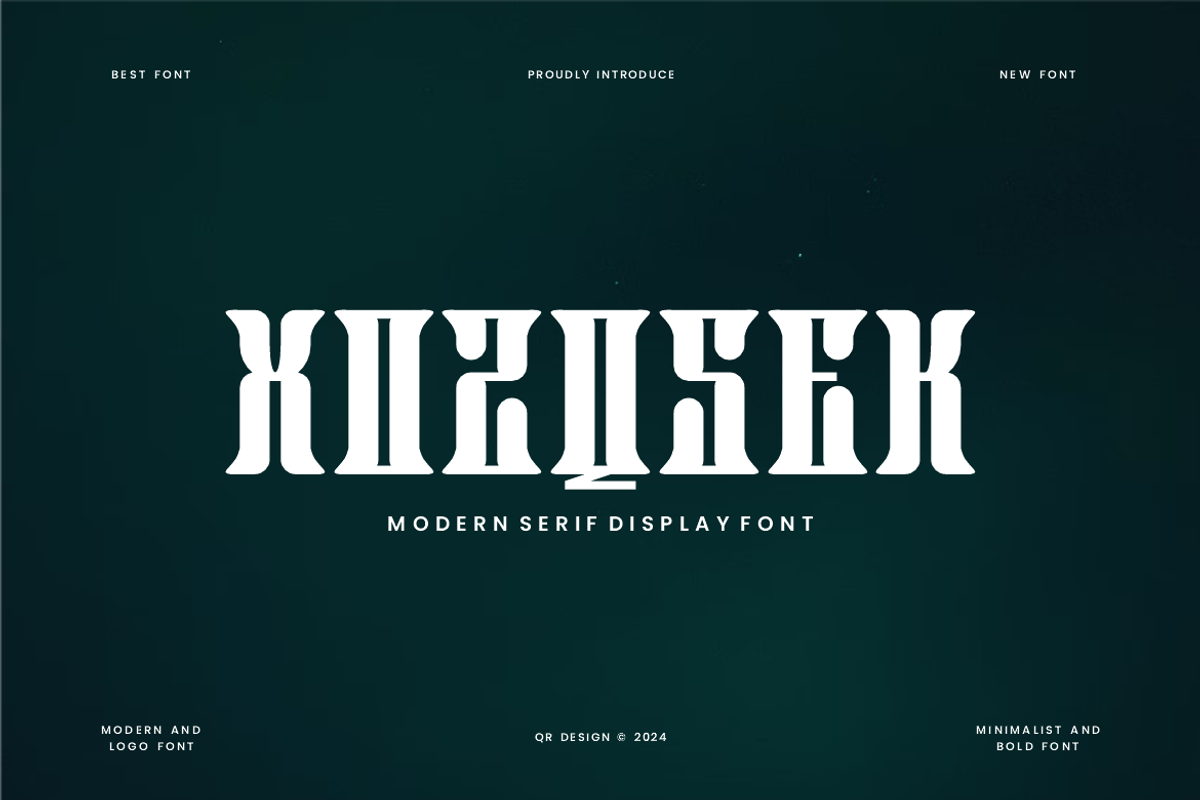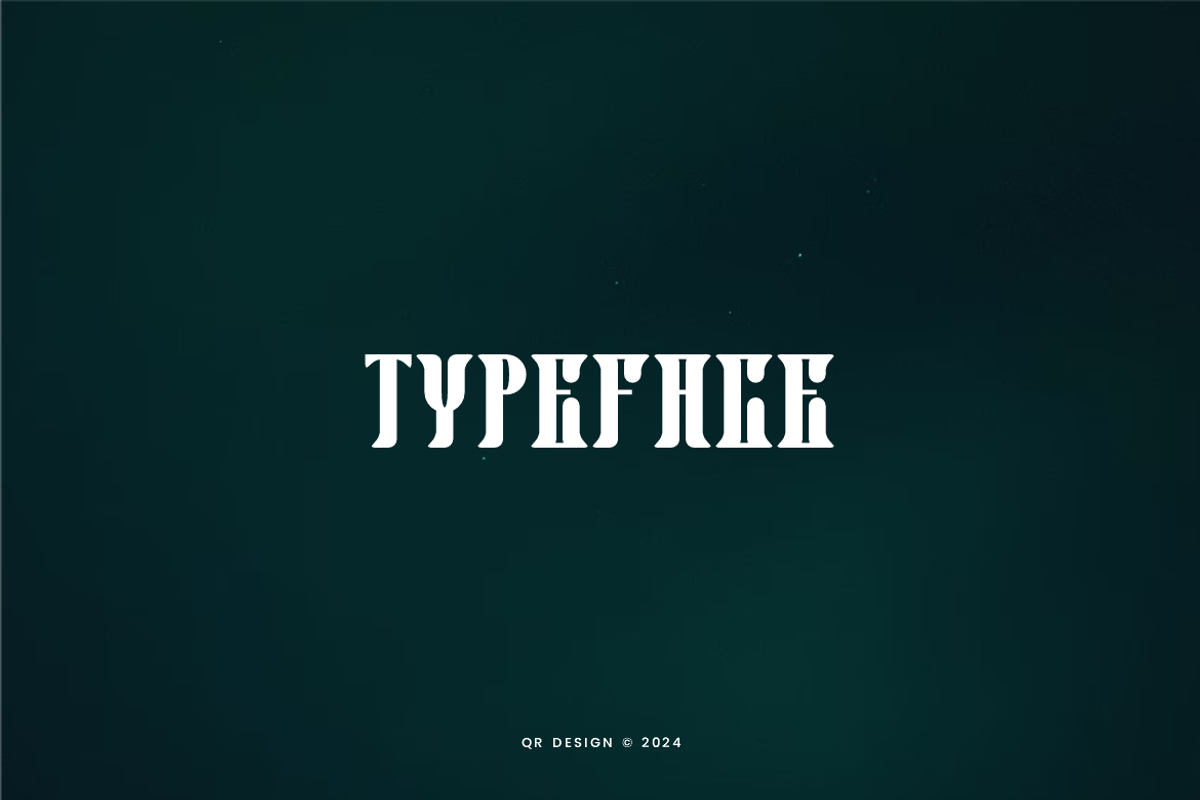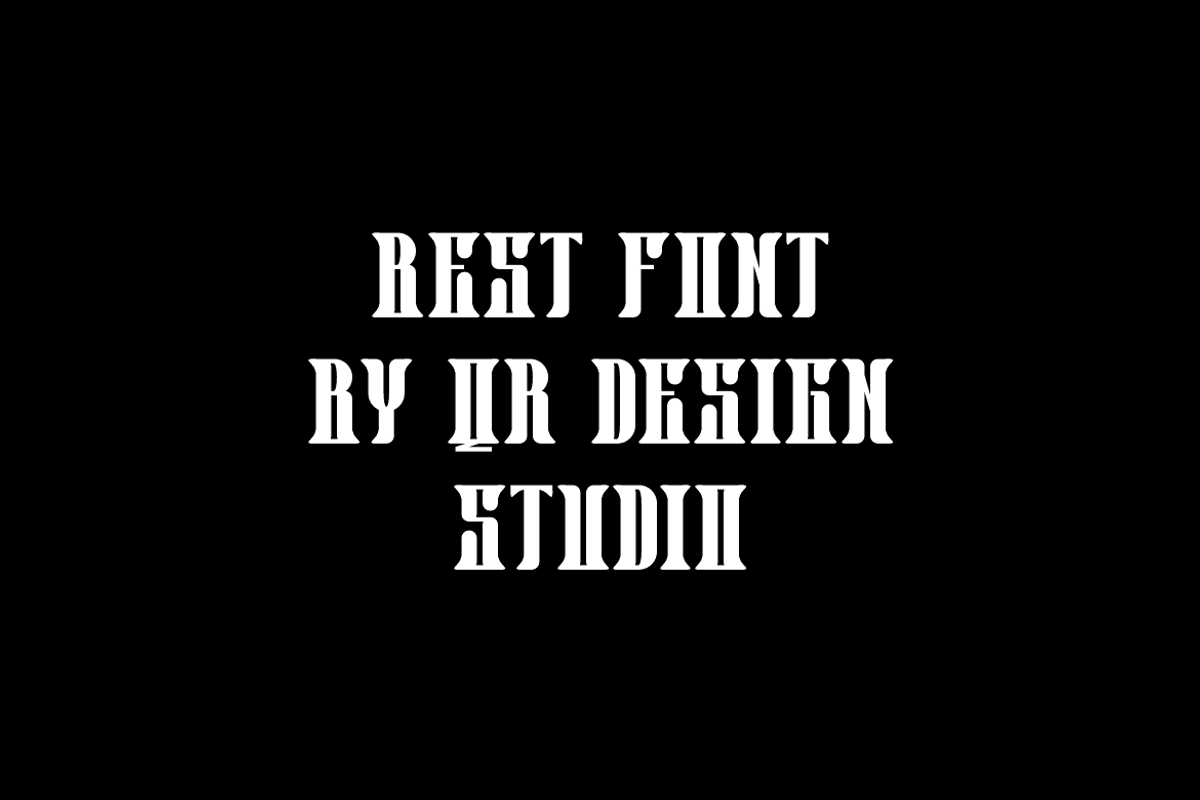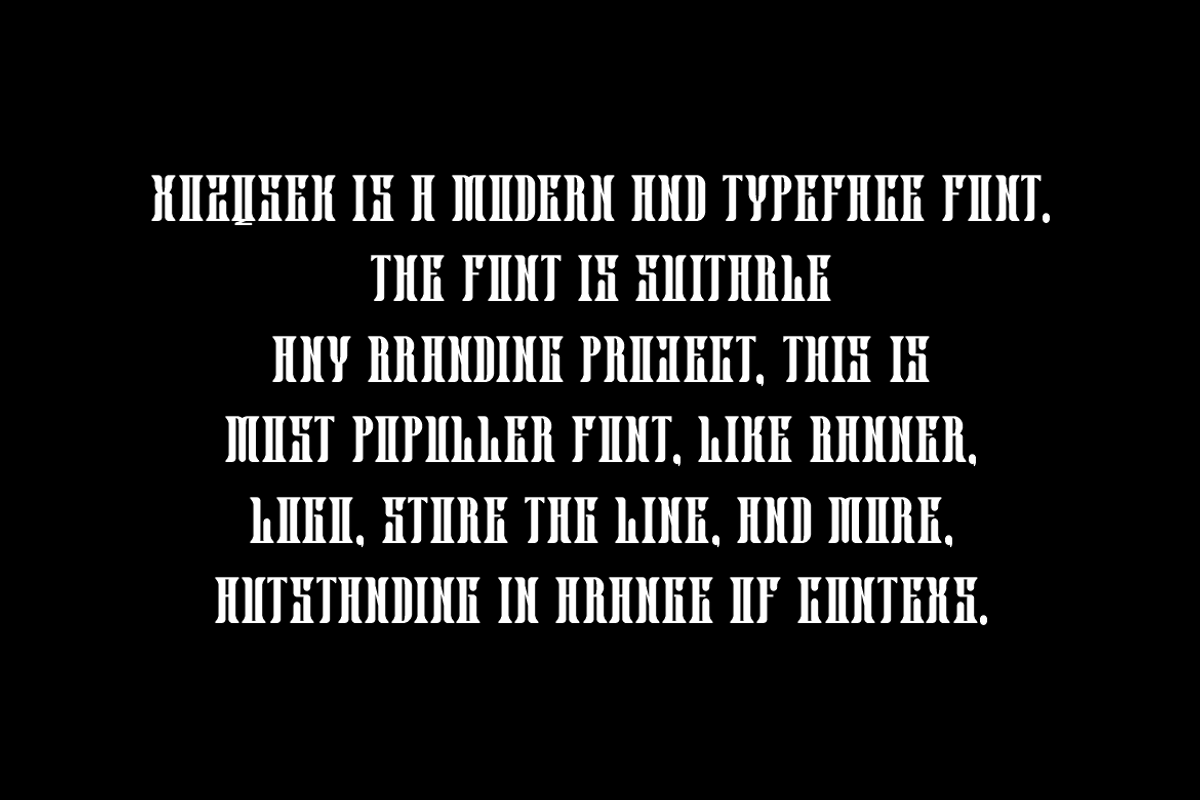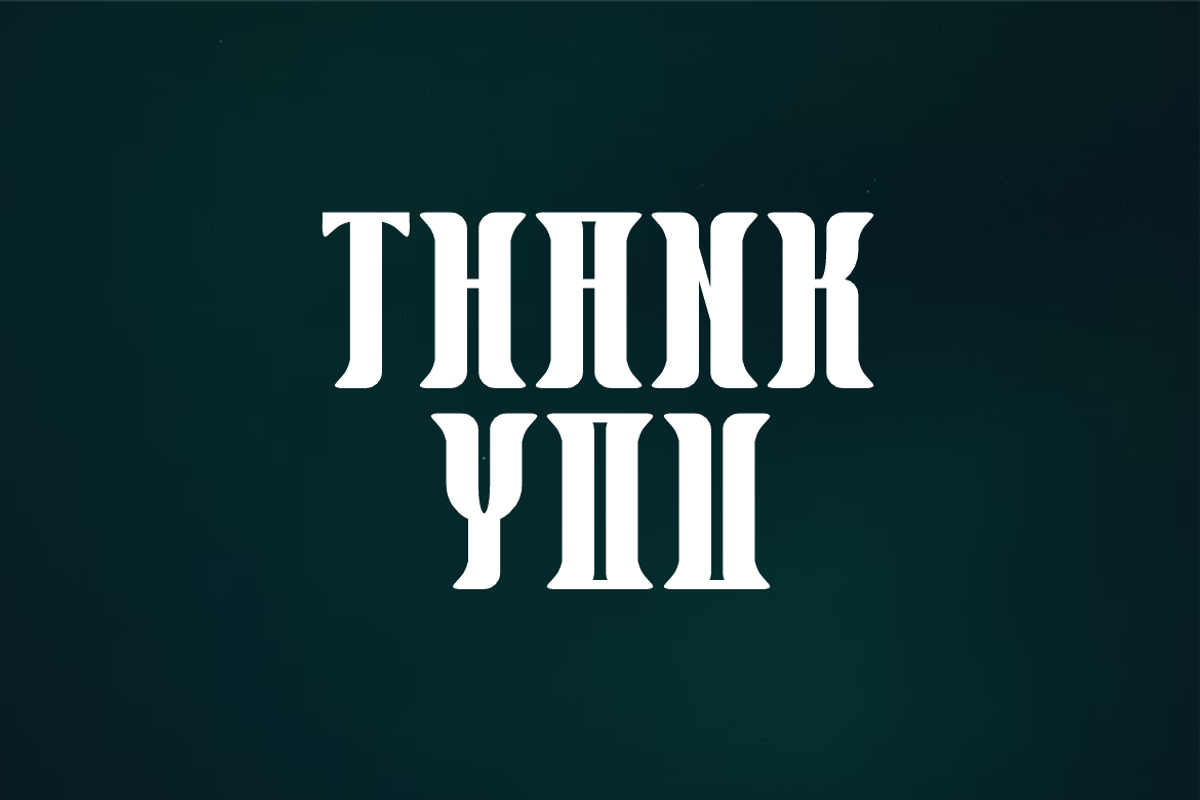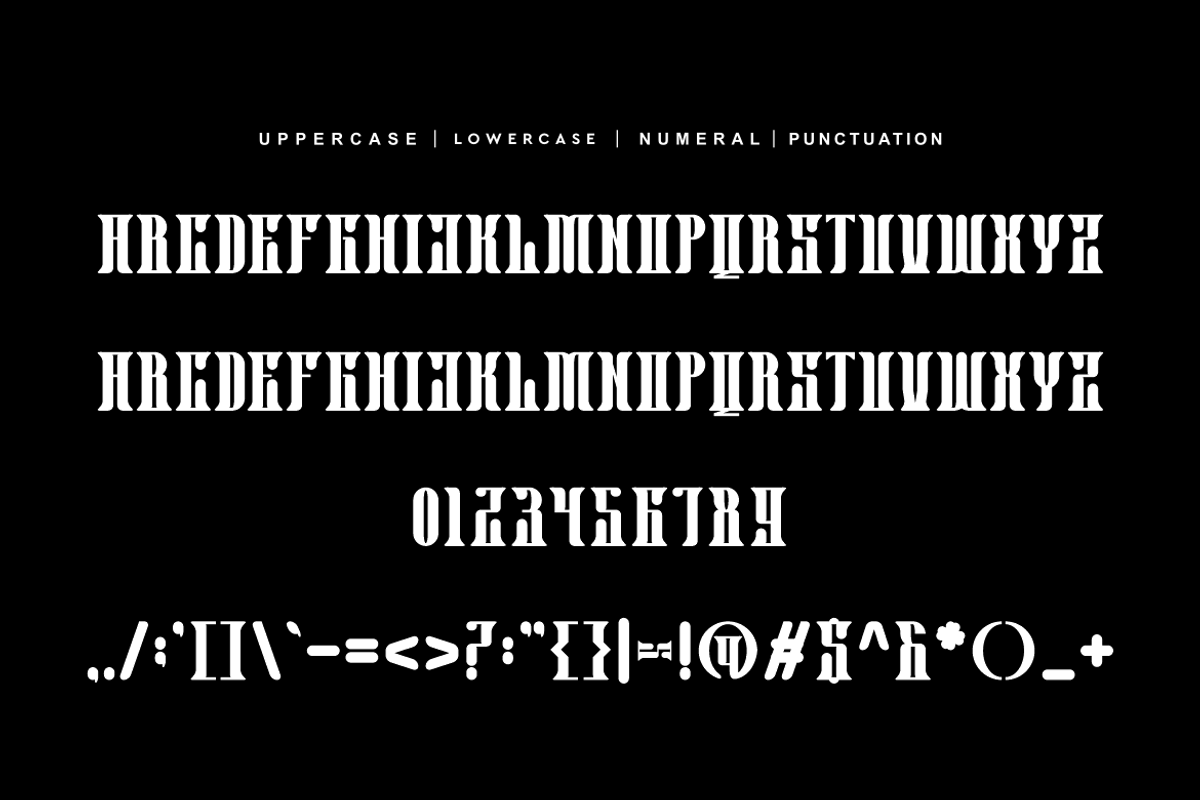
Xozqsek - Tall & Serif Font
Xozqsek Font is a serif and authentic display font. The font is suitable for any branding project like poster, logo, sport, and many more. Outstanding in a wide range of contexts.